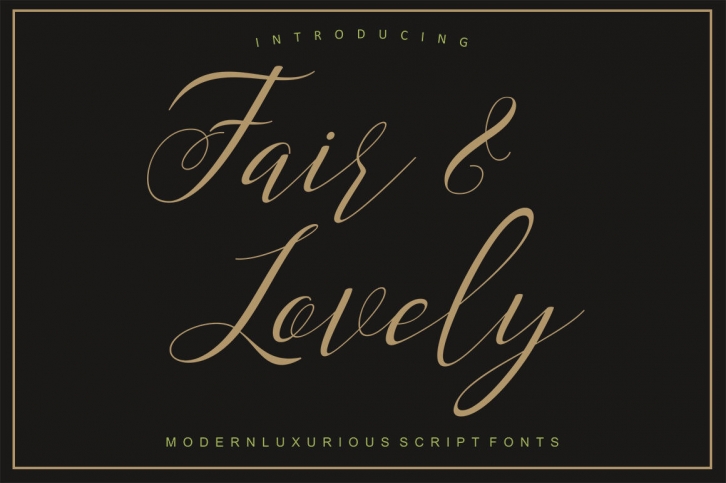
Fair & Lovely is a new modern script font with a smooth base line, trendy and feminine style. This font fits on T-shirts, thank you cards, quotes, greeting cards, logos, business cards and more. Perfect for use in ink or watercolors. Includes initial letters and terminals, alternatives and multiple language support.